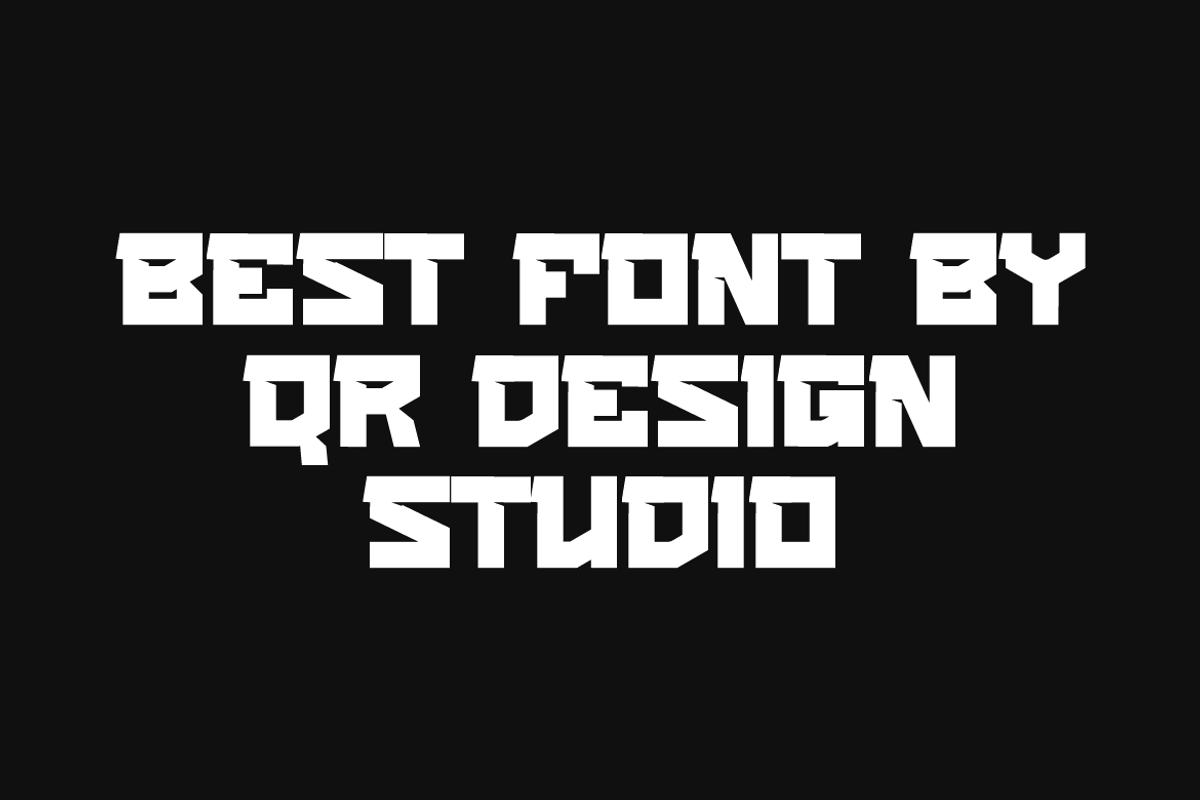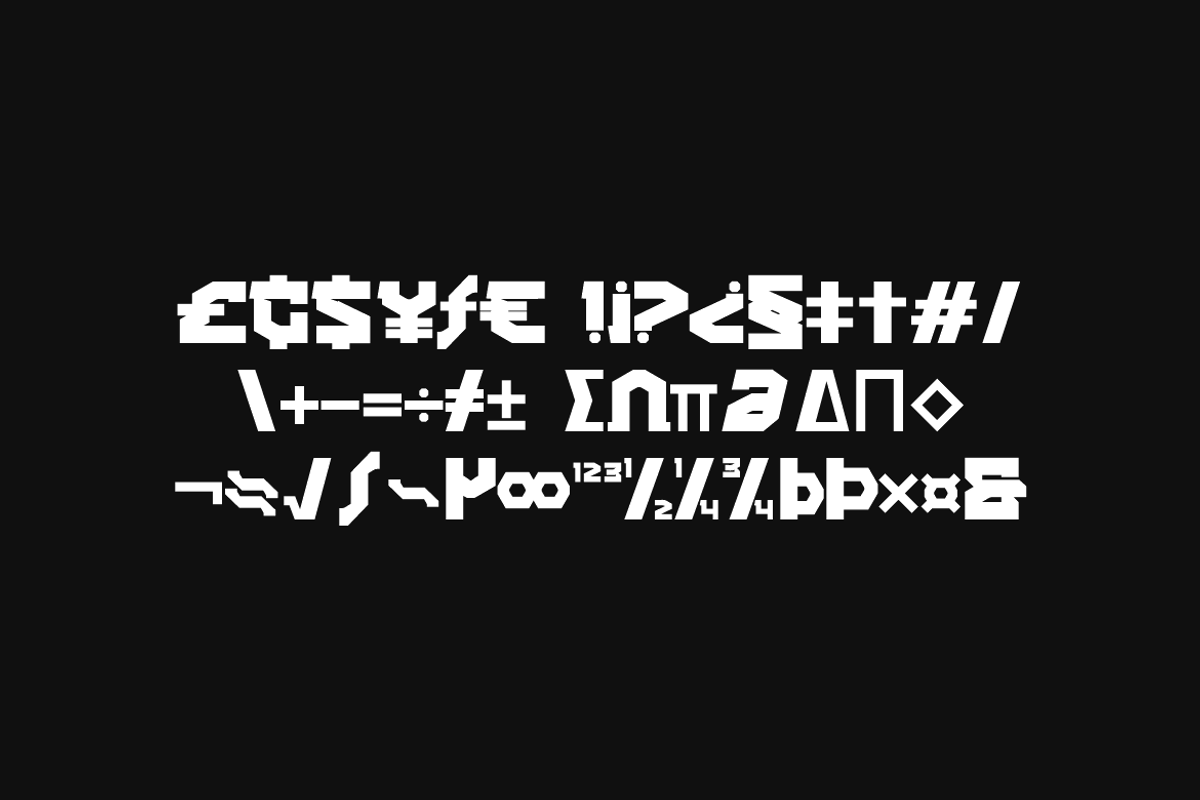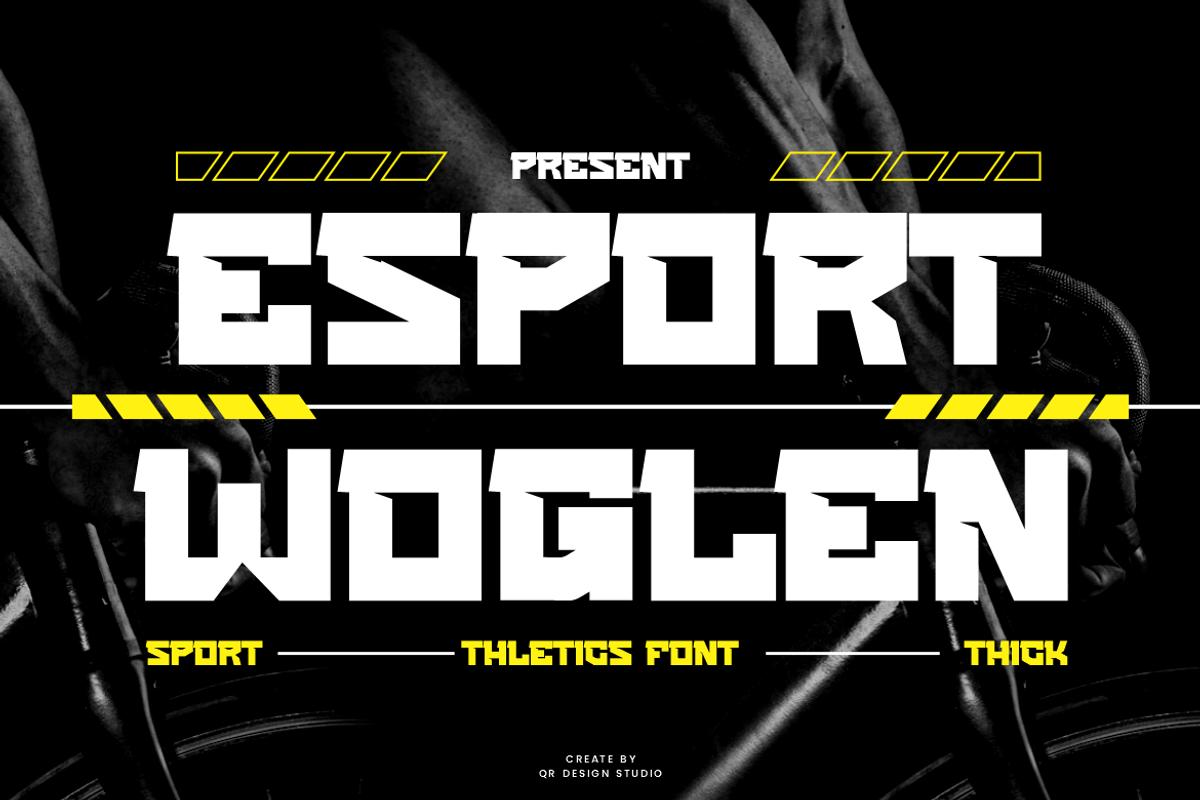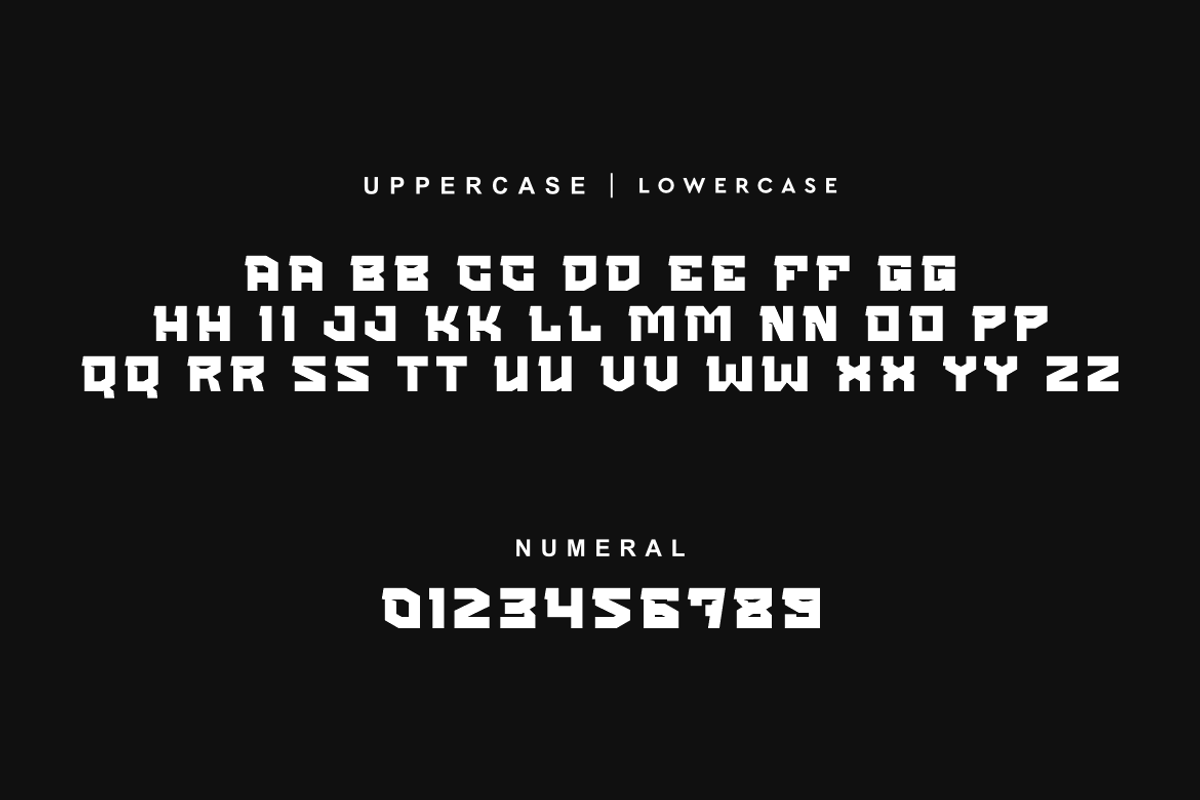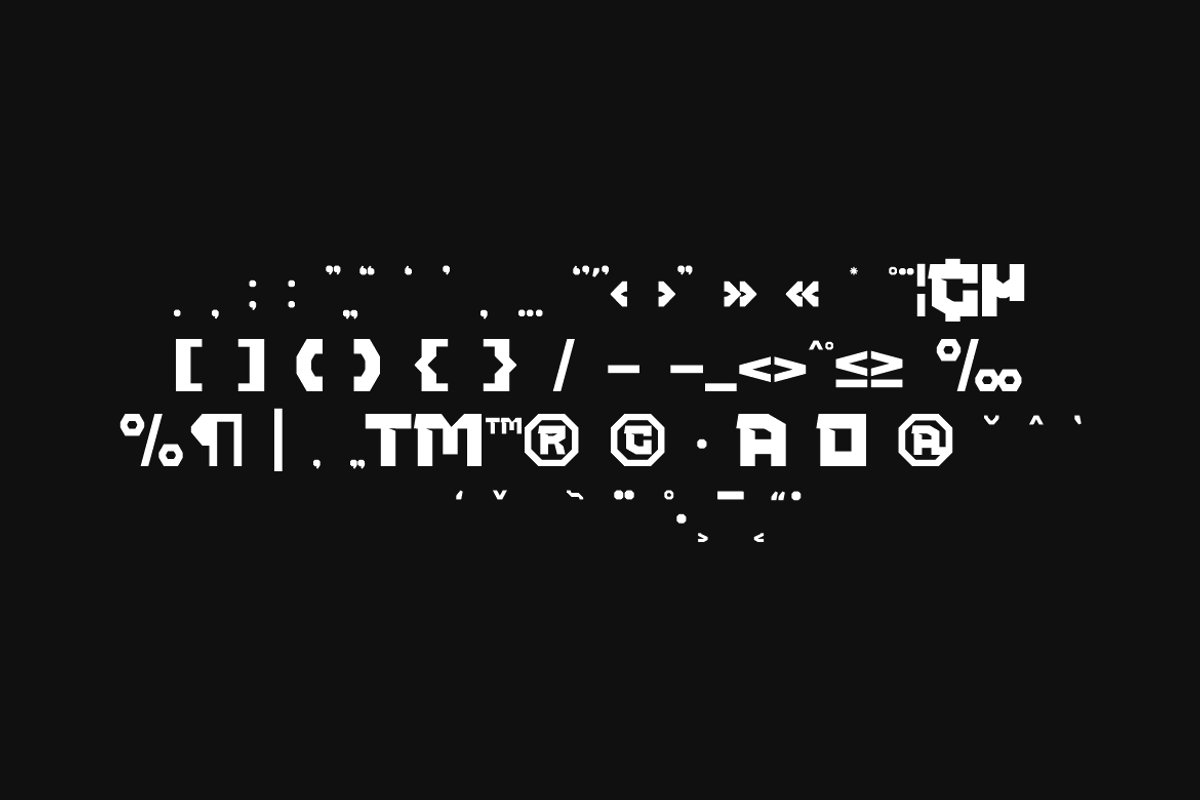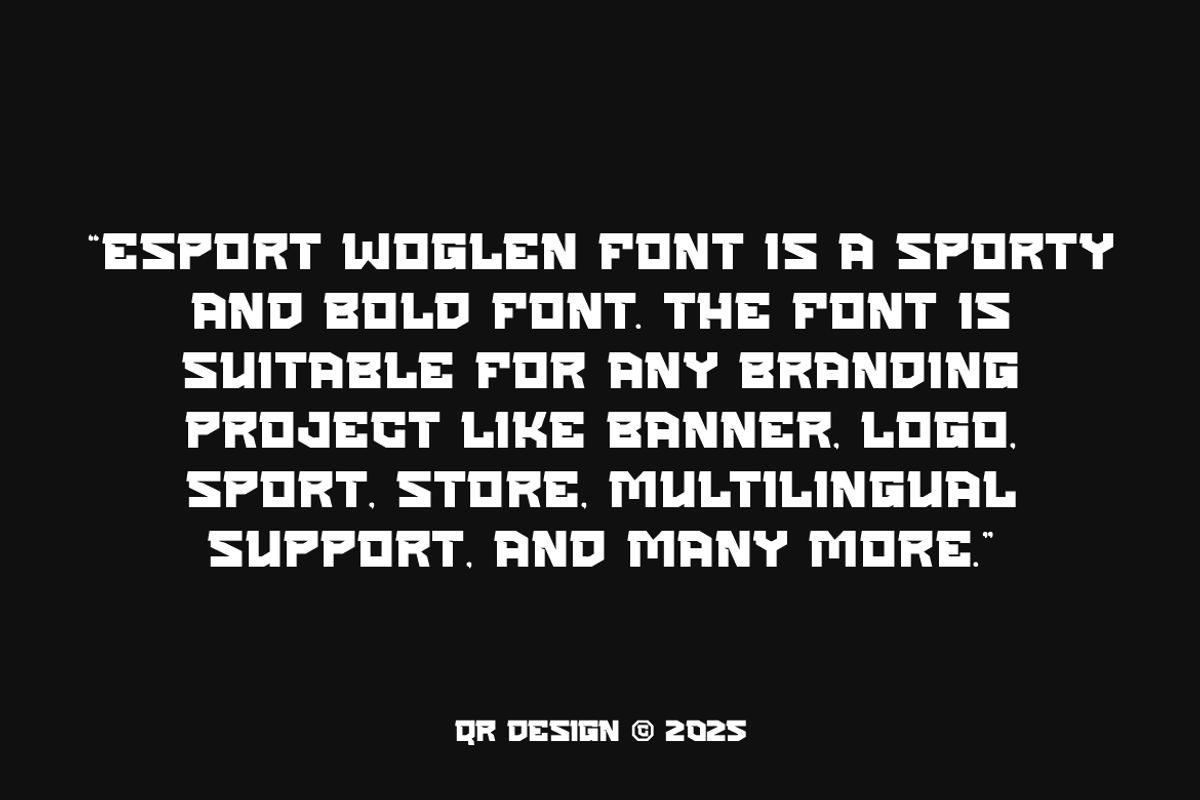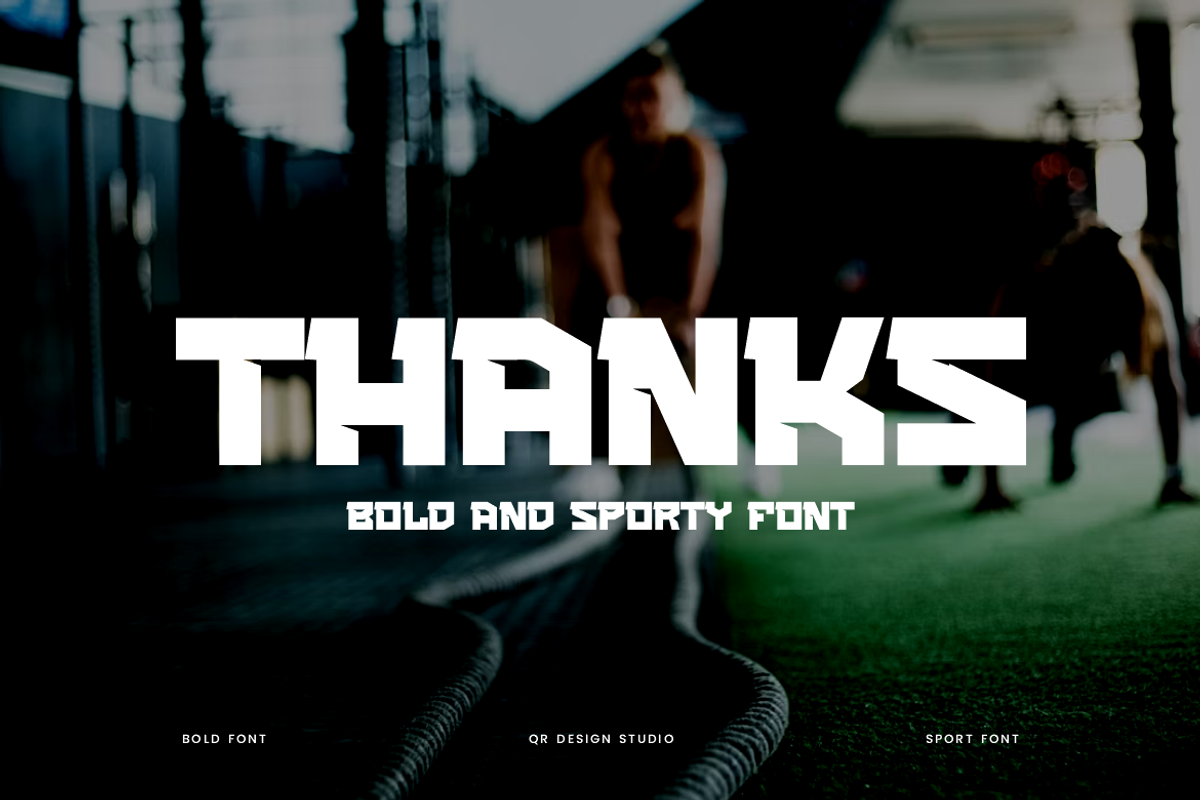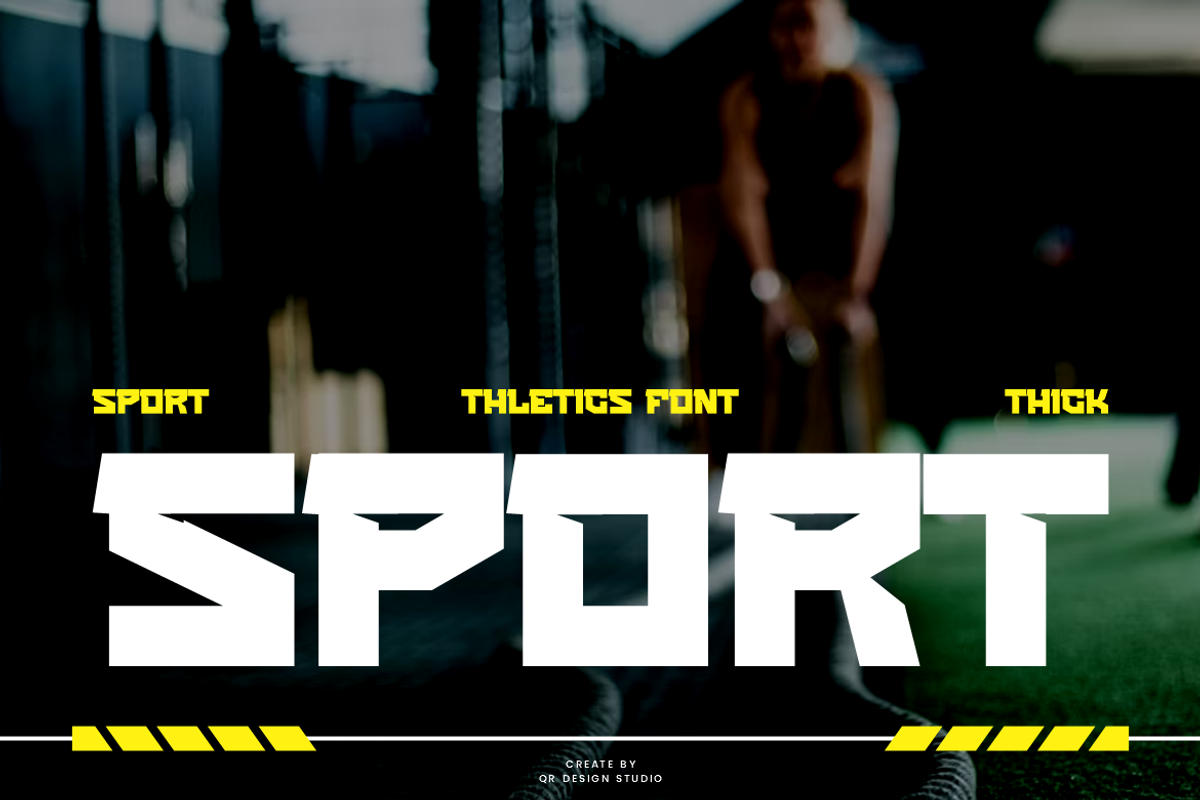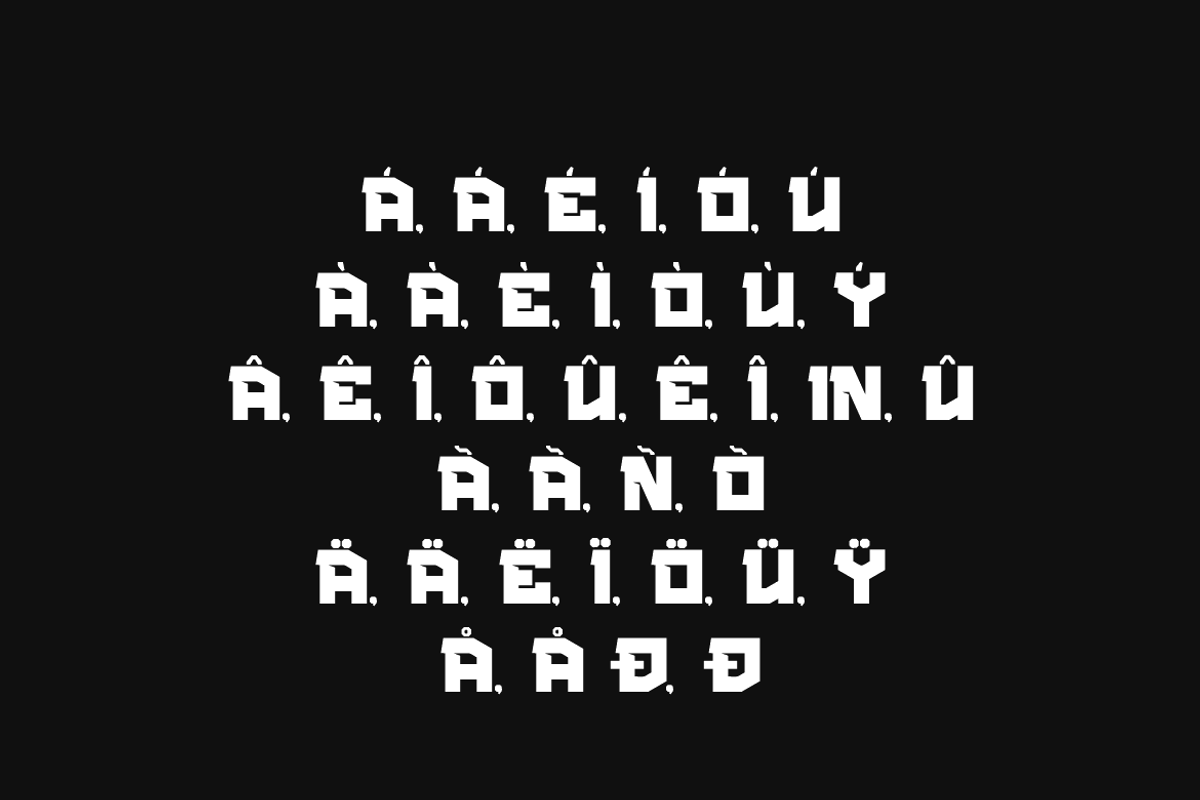
Esport Woglen - Sporty Font
Esport Woglen Font is a bold and authentic display font. The font is suitable for any branding project like poster, logo, sport, and many more. Outstanding in a wide range of contexts.